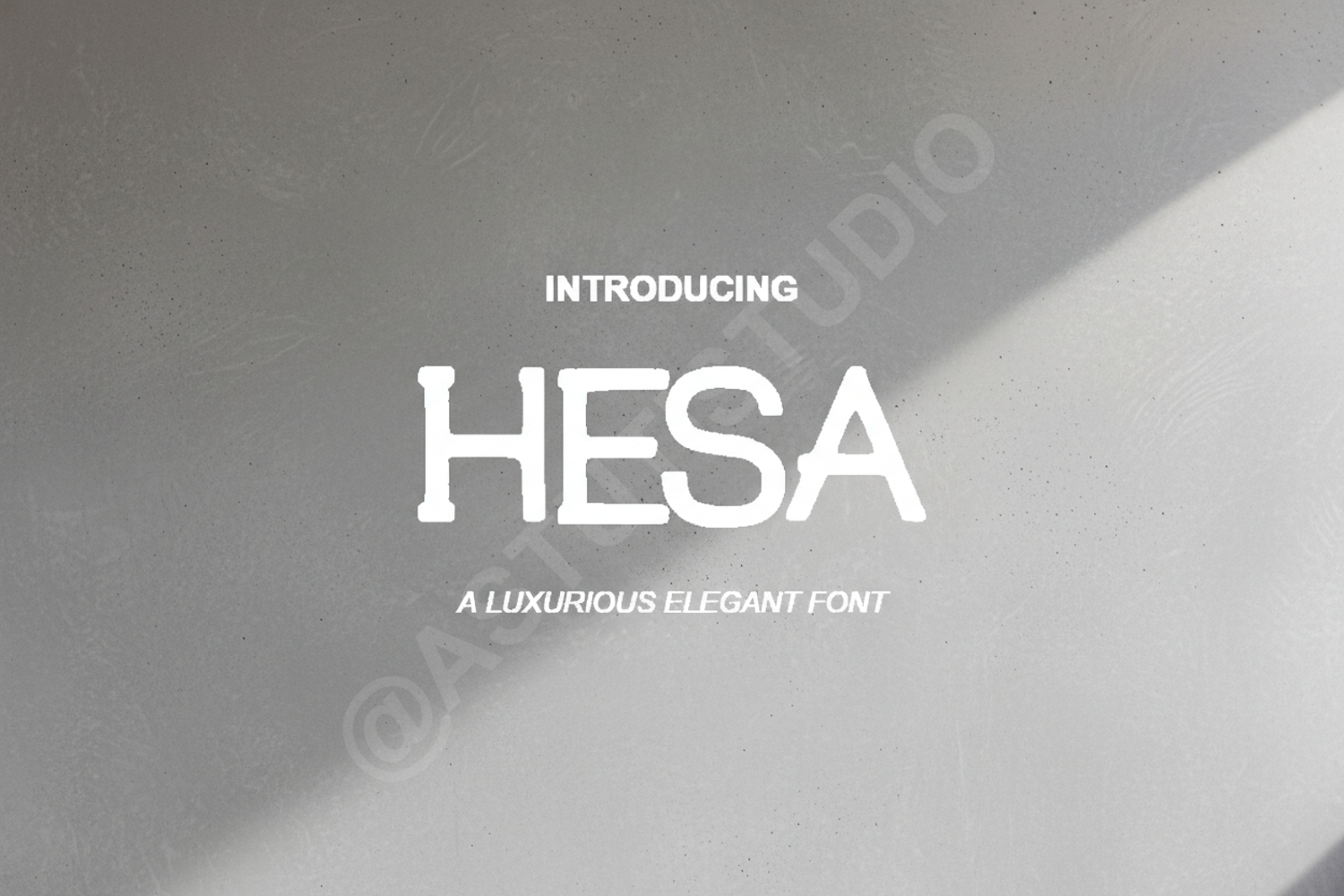
Hesa - Modern Sophisticated Serif Font
Hesa
Elevate your creative projects with Hesa, a premium serif font that embodies modern sophistication and timeless elegance. Carefully crafted with clean lines and balanced proportions, Hesa is designed to bring a touch of luxury to any design. Whether you are working on a high-end brand identity or a minimalist editorial layout, this font provides the versatility and professional polish your work deserves.
- Full set of uppercase and lowercase letters
- Multilingual support for global accessibility